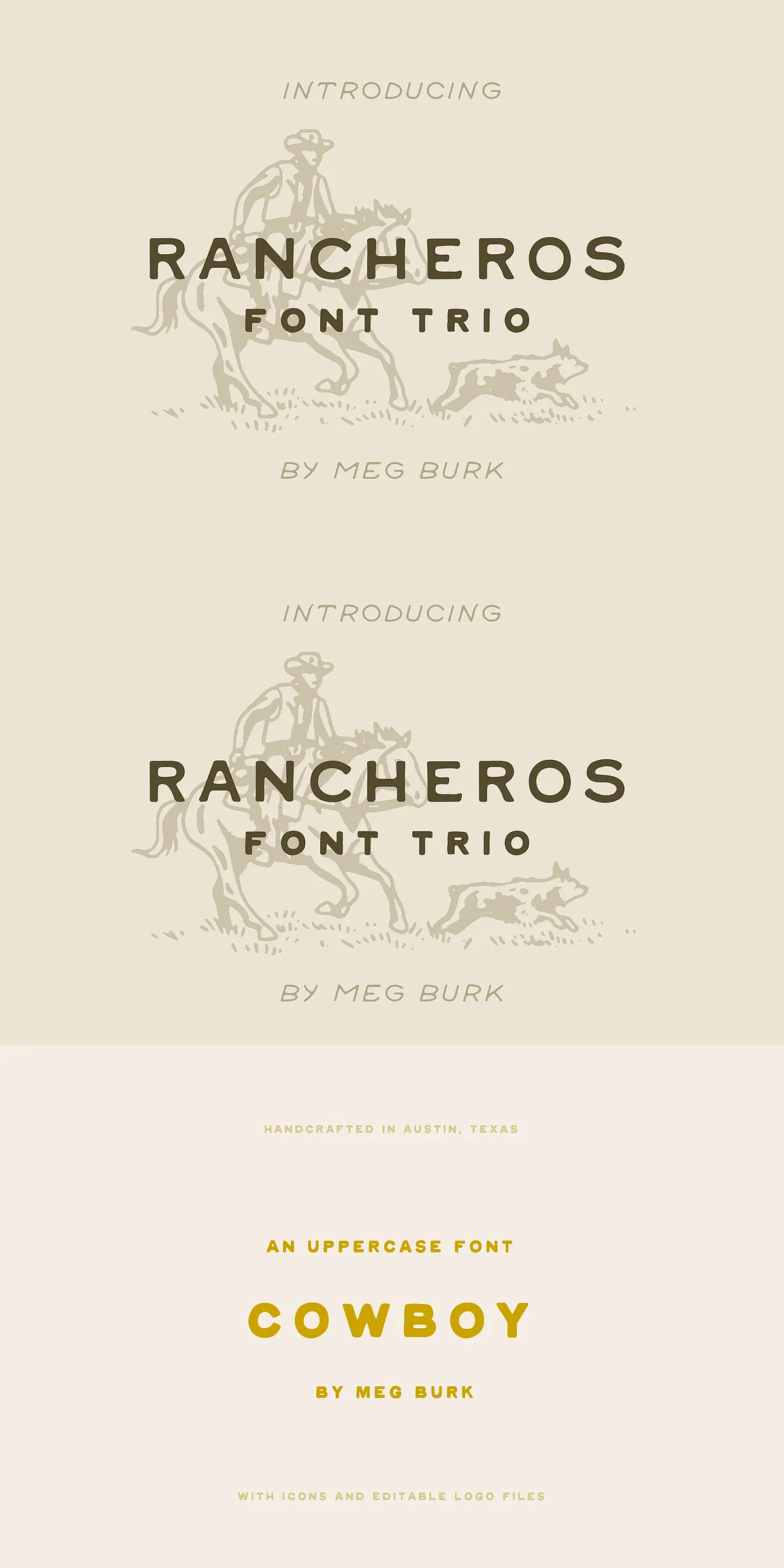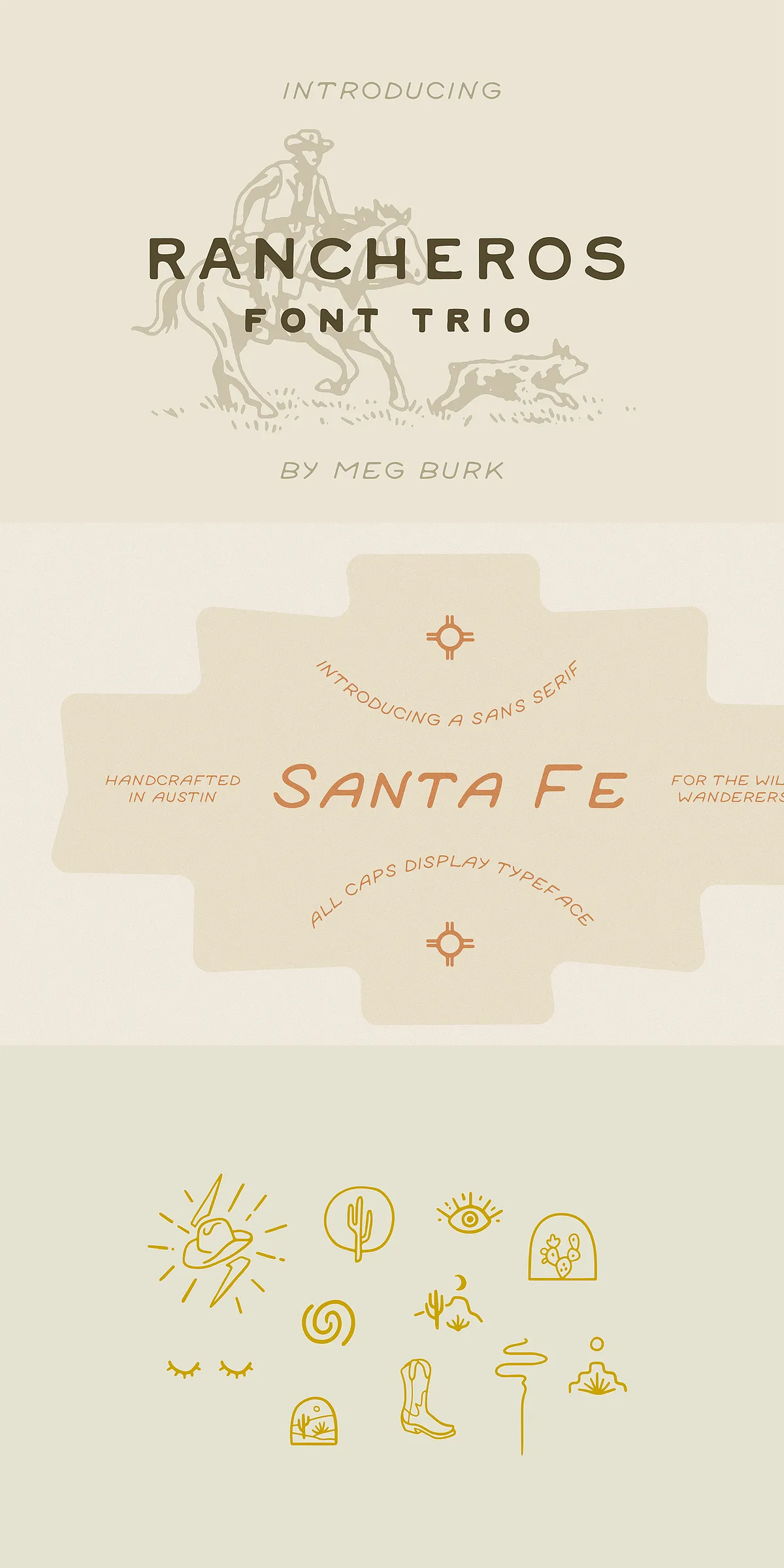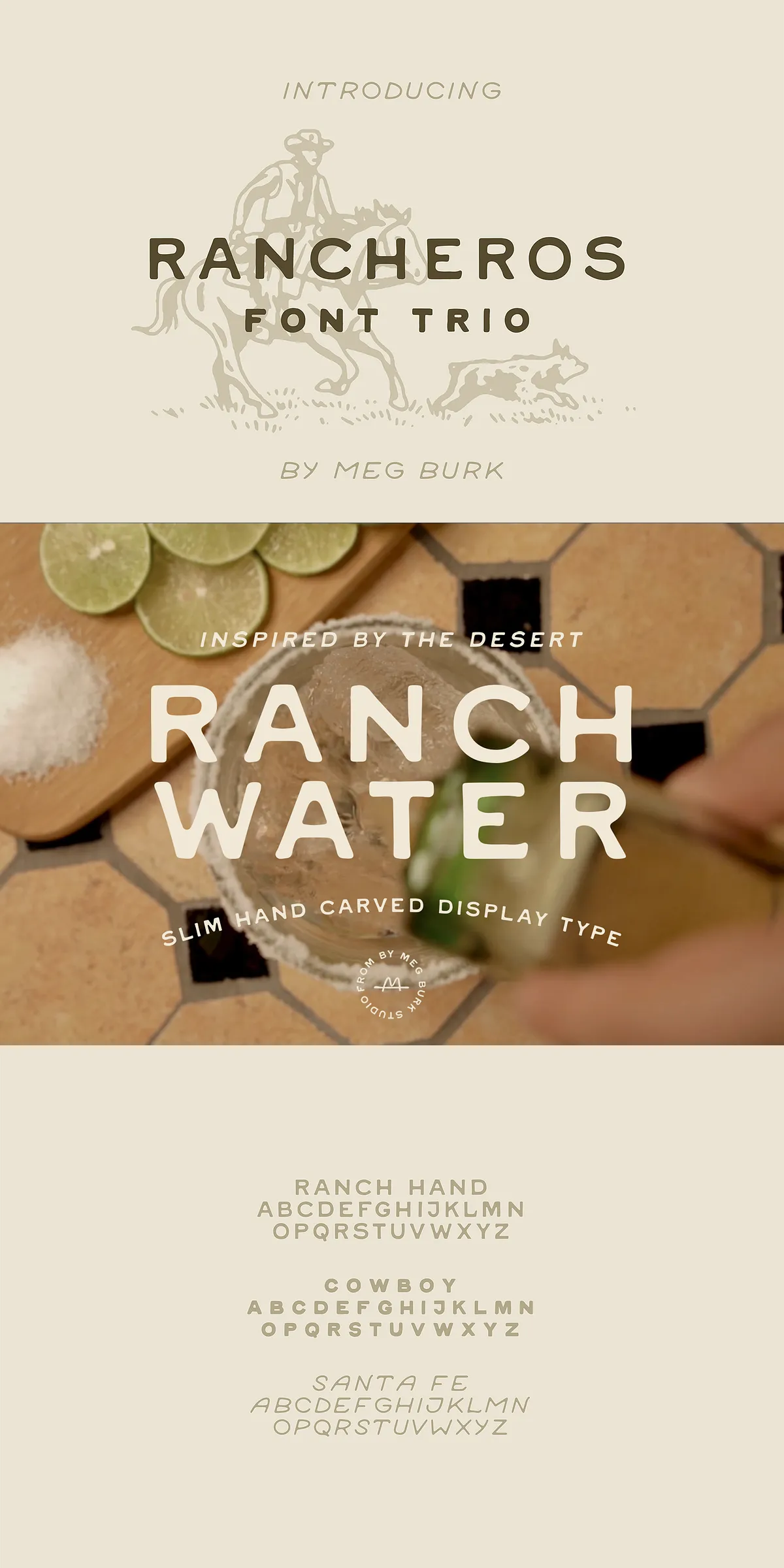
Imagine this: the sun dips low over the desert horizon, dust kicks up in the wind, and your trusty horse—alongside your loyal furry best friend—charges across open plains. Before you, a herd of design problems gallops wild, wild west-style. But don’t worry—this isn’t a battle of survival. It’s a mission of mastery. With your pen in hand, creativity as your compass, and three of my most beloved fonts leading the way, every challenge becomes part of the story.
From the Heartland: Fonts Born from Memory and Motion
These aren’t just typefaces—they’re memories in script. Inspired by quiet mornings in Santa Fe, dusty trails in Taos, and starlit nights under the vast New Mexico sky, this trio was born from wanderlust and innocence. Each font carries a piece of the terrain: rugged but tender, wild but thoughtful, grounded in tradition yet bursting with new life.
The Wild Ride: Bold, Unfiltered, and Full of Character
First in line is a bold, hand-crafted display font that doesn’t whisper—it roars. Its thick strokes echo old barn signs, its uneven lines mimic brushwork across sun-baked wood, and its quirky alternates make every word feel like it was drawn with a pencil in the back seat of a road-trip van. It’s messy in the best way—perfect for posters, headlines, t-shirts, and branding that wants to stand out in a crowd.
The Quiet Stroll: Refined with a Hint of Dust
Next, a soft yet confident script font—like a slow ride through the high desert at dusk. Flowing, slightly uneven, with delicate flourishes that flutter like tumbleweed in a breeze. This one isn’t loud; it’s present. Use it for invitations, product packaging, brand stories, or any moment that calls for emotional depth and rustic charm.
The Long Trail: Clean, Strong, Built for the Journey
Finally, a clean, geometric sans-serif with rugged edges—like a map drawn in pencil on a napkin. Strong midlines, generous spacing, but with a subtle grit that reminds you the design isn’t flawless. It’s real. This font thrives in logos, titles, web headers, and any project needing modern strength with a touch of frontier spirit.
Why This Trio Works: When Creativity Meets Storytelling
These fonts aren’t just tools—they’re companions. They’re the ones you call when your design needs a voice. Whether you’re designing a festival flyer in Alburquerque, launching a new line of handmade goods in Albuquerque, or telling the story of a family ranch, this collection speaks the language of place, passion, and purpose.
- One Font for the Charge — The bold display type for bold moments.
- One Font for the Pause — The delicate script for heartfelt words.
- One Font for the Journey — The clean sans for long-lasting impact.
Designed for Real Projects, Real People
Use them together or alone—this trio is built for flexibility. Whether you’re a freelance designer, a small business owner, or a creative director, these fonts empower you to tell stories that resonate. They thrive in:
- Branding & identity for outdoor, artisan, or lifestyle brands
- Event posters, flyers, and invitations
- Website headers and landing pages with a narrative tone
- Merchandise, packaging, and print design with soul
- Journaling, book covers, and narrative-driven content